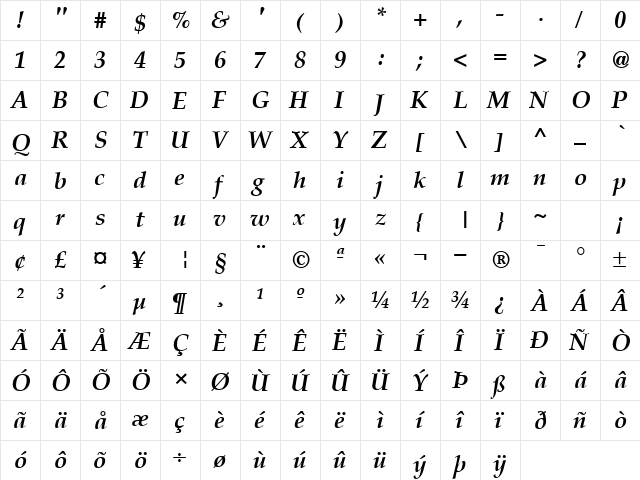
LatinoPal6 BoldItalicSH Font Preview
Design Context for LatinoPal6 Typeface
LatinoPal6 takes a measured approach to typography — its balanced proportions and neutral character make it a reliable workhorse for both digital and print work. Its italic angle brings a sense of urgency and motion to the letterforms. The heavy weight commands attention and anchors typographic hierarchies.
Pro Tip: Try LatinoPal6 for annotation and caption copy alongside an upright companion — the contrast in angle creates a dynamic but ordered typographic system.